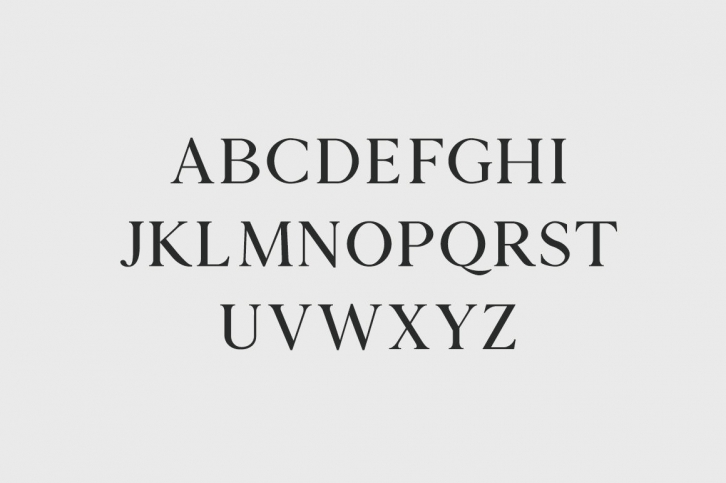
Zimra Serif Font Family Download
Zimra Serif font is a set of 5 weights font family and it is good for making creative displays and it has unique and modern serif layout. It Suits best for modern / clean designs, logos, headlines, banners and templates etc. It looks gorgeous in all caps with a wide-set spacing if you want to try a classy look, or beautiful on its own in capital and lowercase letters for something completely timeless.
• Regular, Light, Thin, Black, Bold
Zimra Font Features:
• Uppercase Multilingual Letters
• Lowercase Multilingual Letters
• Numbers & Punctuation
• Alternative